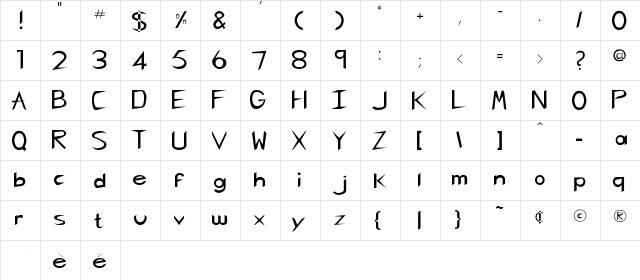
Charlie_Chan Regular
Design Context for Charlie_Chan Typeface
Charlie_Chan takes a measured approach to typography — its balanced proportions and neutral character make it a reliable workhorse for both digital and print work.